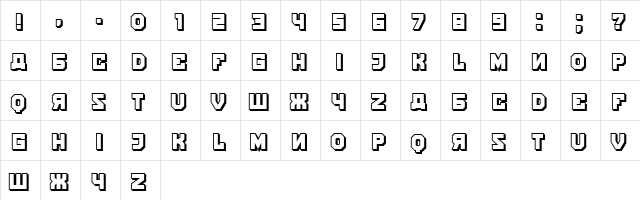
Kalinka Shadow Regular Font Preview
Kalinka Shadow Regular
Design Context for Kalinka Shadow Typeface
Kalinka Shadow is built around its visual character rather than neutral utility — its distinctive forms are designed to make an impression at display sizes.
Font Pairing: Pair with a clean neutral sans-serif for body copy to let Kalinka Shadow's character lead without overwhelming the composition.
Pro Tip: Use Kalinka Shadow exclusively at display sizes — it was designed to be seen, not read at length. Let a neutral companion handle body copy.